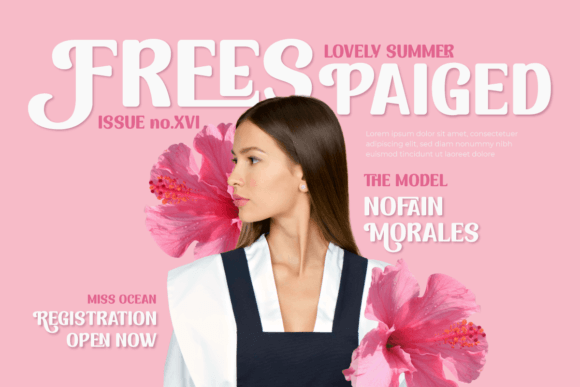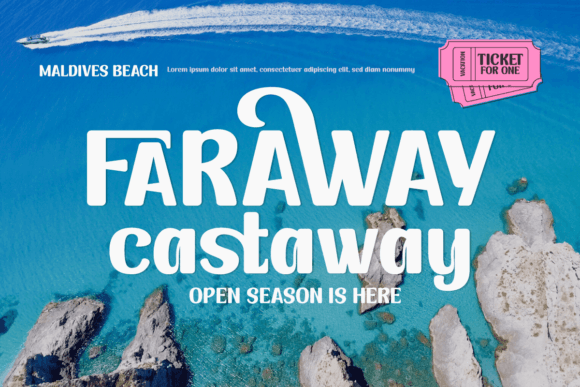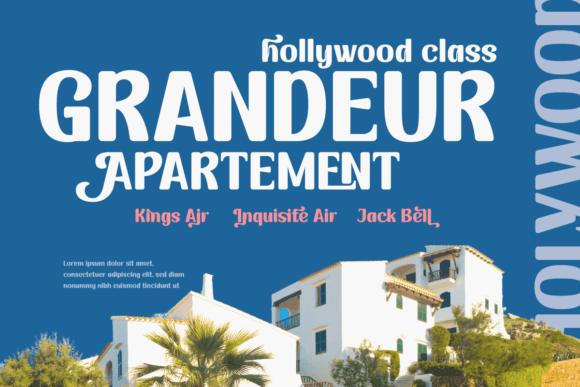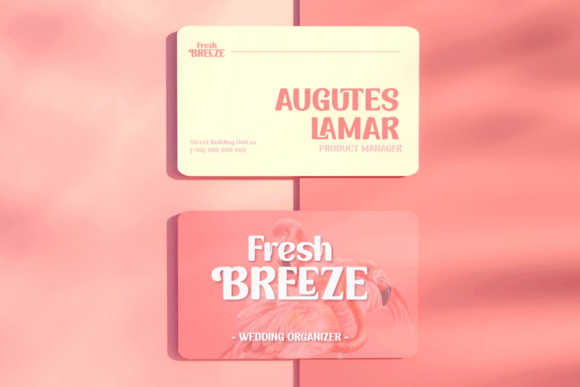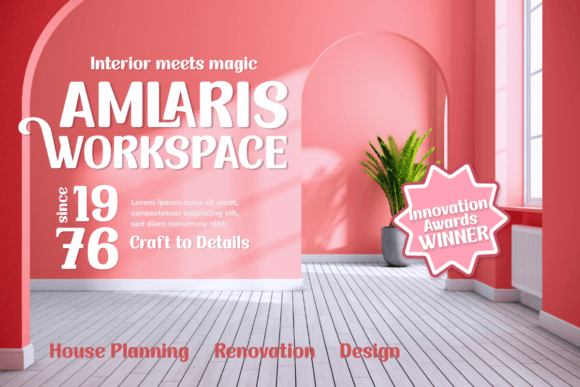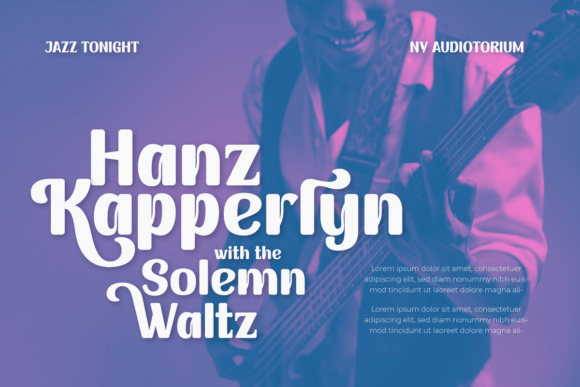
Introducing Anwutok Font: The Ultimate Summer Freshness for Your Designs
Are you tired of using the same old fonts for your projects? Do you want to add a touch of summer freshness to your designs? Look no further than the Anwutok font! This cheerful display font is perfect for creating projects with a relaxed and bright feel. With its impressive features and playful style, Anwutok is sure to become your go-to font for all your design needs.
What Makes Anwutok Font So Special?
Anwutok font comes with a range of impressive features that make it stand out from the rest. One of its key features is its ligatures and alternates. These allow you to easily combine interesting characters and create unique and creative typography designs. Whether you’re working on a logo, a poster, or a website, Anwutok’s ligatures and alternates give you the flexibility to experiment with different styles and create something truly unique.
A Fresh and Playful Style
Anwutok font has a fresh and playful style that’s perfect for designers and crafters who want to add a fun and uplifting touch to their designs. Each letter is designed with care to convey evocative beauty, making it perfect for projects that require a touch of elegance and sophistication. Whether you’re working on a children’s book, a summer-themed poster, or a website, Anwutok’s playful style is sure to bring a smile to your audience’s face.
Anwutok font is perfect for designers and crafters who want to create enthralling and relaxing projects. Whether you’re working on a logo, a poster, a website, or a craft project, Anwutok’s unique style and features make it the perfect choice. With Anwutok, you can:
- Create unique and creative typography designs with ligatures and alternates
- Add a fun and uplifting touch to your designs with its playful style
- Easily access a range of glyphs and ligatures with PUA encoding
- Convey evocative beauty and elegance with carefully designed letters